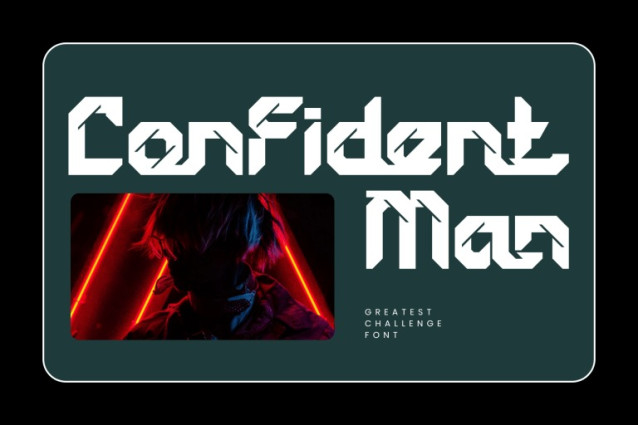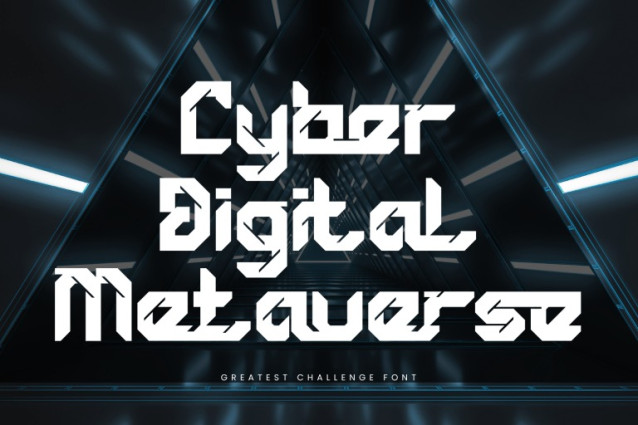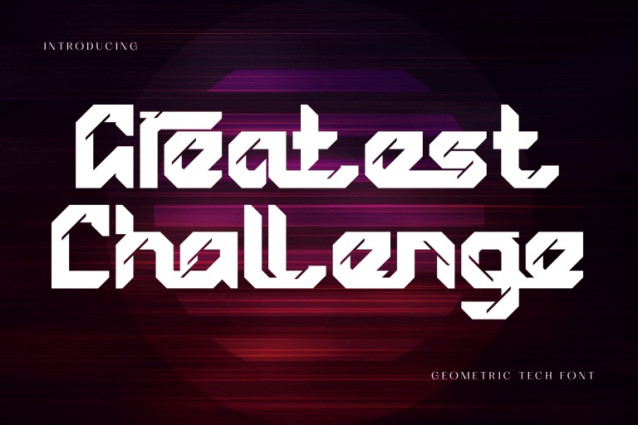
Greatest Challenge Font
Greatest Challenge – Tech Font is a bold futuristic display font inspired by cyberpunk aesthetics and advanced technology design. Featuring strong geometric letterforms and sharp angular cuts, this typeface delivers a powerful mechanical and digital look that stands out instantly. Each character is crafted with precise edges and unique cut details, giving it a high-tech identity reminiscent of circuits, robotics, and sci-fi environments. Greatest Challenge is perfect for gaming titles, tech branding, futuristic posters, logos, and any project that demands a modern, edgy style.
Uppercase & Lowercase Letters
Around 100 Special Ligatures & Alternates
Accented Characters for multilingual support
🔤About 100 ligatures combined with Stylistic Alternates Font: